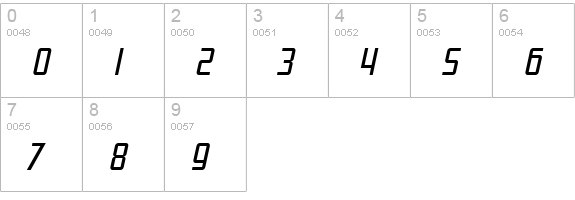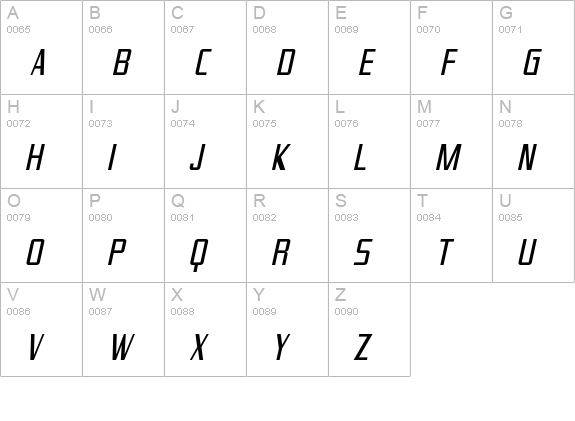
SF Proverbial Gothic Condensed Oblique Font Details
SF Proverbial Gothic Condensed Oblique is a distinctive, condensed-width, italic variant in the SF typeface family \xE2\x80\x94 well suited to design and typography projects.
SF Proverbial Gothic Condensed Oblique font is a stylish and modern typeface that exudes a sense of sophistication and elegance. Its condensed design adds a touch of sleekness, making it perfect for various design projects that require a compact yet impactful typography. This font is the epitome of versatility, making it suitable for a wide range of applications. Whether you are designing a logo, creating eye-catching headlines, or crafting an attention-grabbing poster, SF Proverbial Gothic Condensed Oblique font will effortlessly elevate your designs to new heights. The oblique style of this font adds a subtle twist to its overall aesthetics, giving it a unique and dynamic edge. Its slanted appearance adds a sense of movement and flair, making it an excellent choice for projects that require a touch of drama and excitement. One of the standout features of SF Proverbial Gothic Condensed Oblique font is that it is freely available to download at FontsMarket.com. This means that you can easily access this incredible font without any hassle or cost. Whether you are a professional designer or a hobbyist, having access to high-quality fonts like SF Proverbial Gothic Condensed Oblique font can greatly enhance your creative endeavors. With its stylish design, versatility, and the fact that it is freely available, SF Proverbial Gothic Condensed Oblique font is a must-have for any designer looking to add a touch of sophistication and elegance to their projects. So why wait? Head over to FontsMarket.com and download this incredible font today.